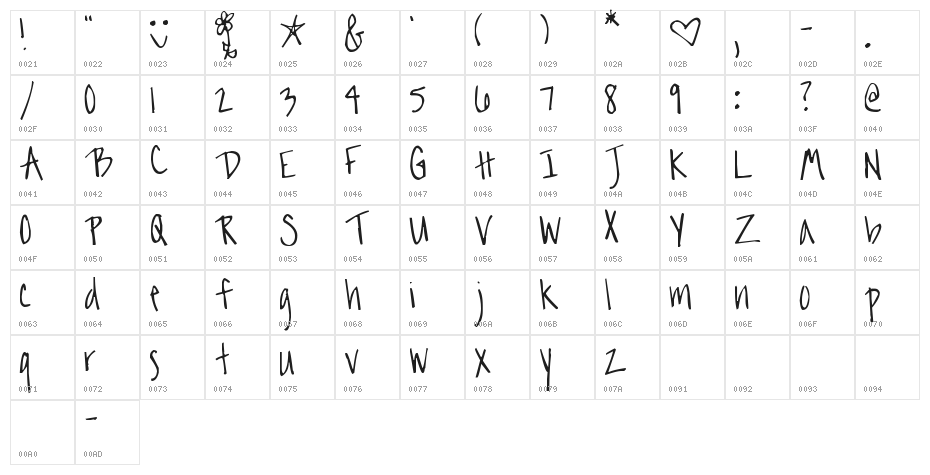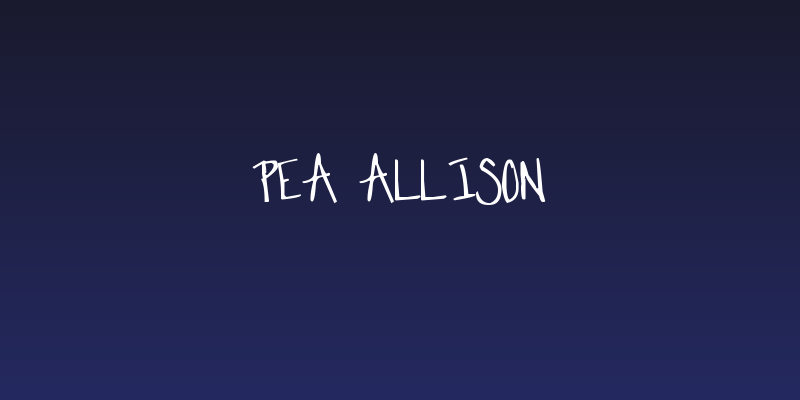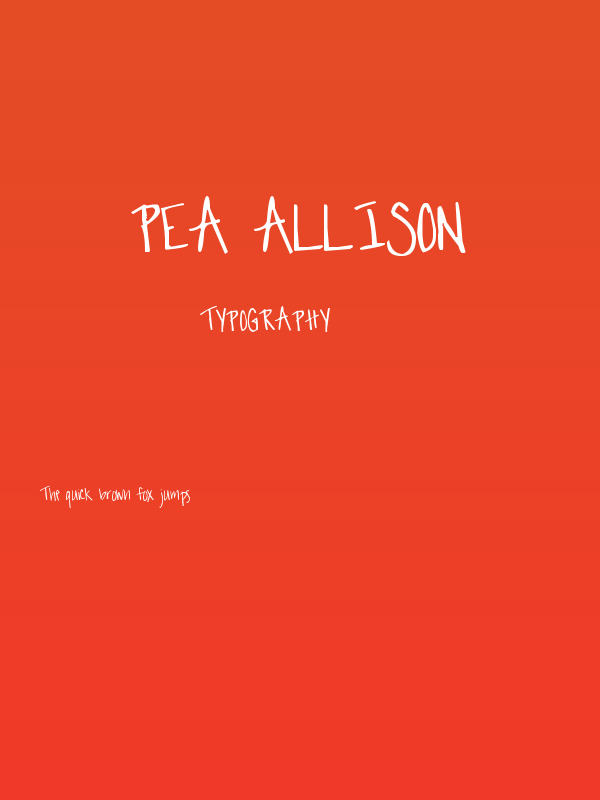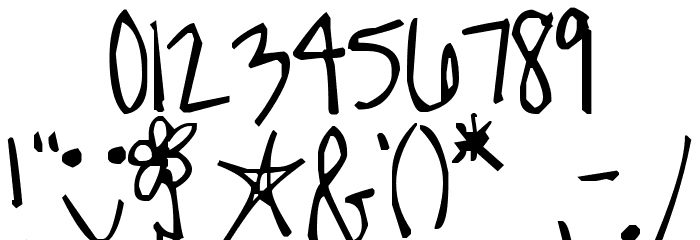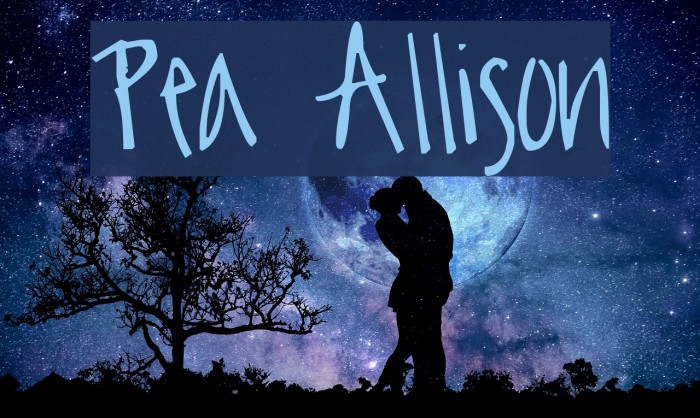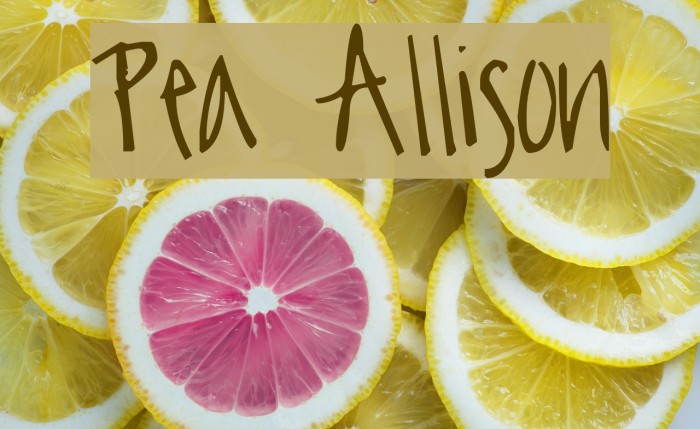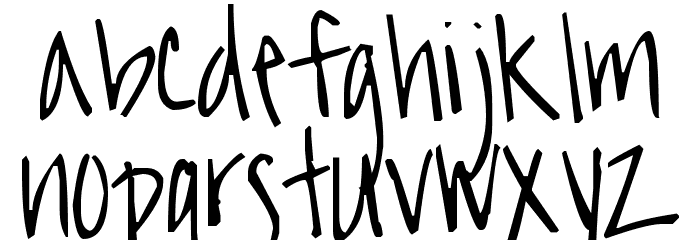
Pea Allison Font
Pea Allison Description
This font features a playful and casual handwritten style, characterized by its loose and informal strokes. The letters are slightly slanted, giving a dynamic and lively appearance. The uppercase and lowercase letters are distinct, with some letters like 'a' and 'g' having unique, whimsical forms. The numbers and special characters maintain the same playful aesthetic, making the font suitable for creative and informal projects. The overall look is approachable and friendly, perfect for conveying a personal touch.